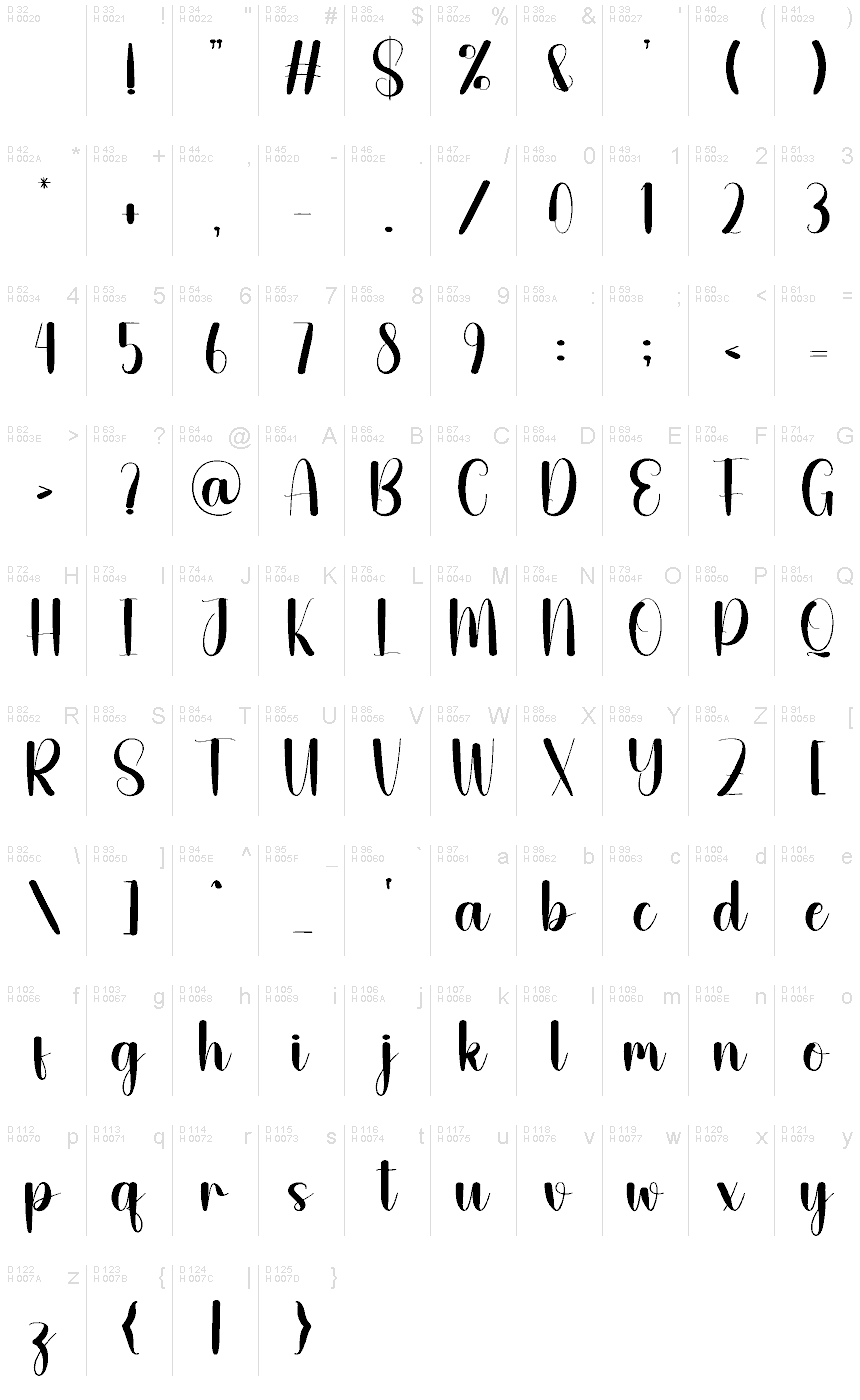
Vintage Monday
Vintage Monday font by Andi Moz is a free calligraphy font with an expressive, signature-like appearance. Flowing lines make for an elegant and artistic style which can be used in endless applications. This relaxed typeface will add a touch of personality to your writing and designs, improving branding projects that require that stylish personal element.
Use in all weekend projects where you want to create invitations, business cards, and place cards. Use it also on institutional stationery printed or digital formats like websites; this casual typeface would make a wonderful social media page header!